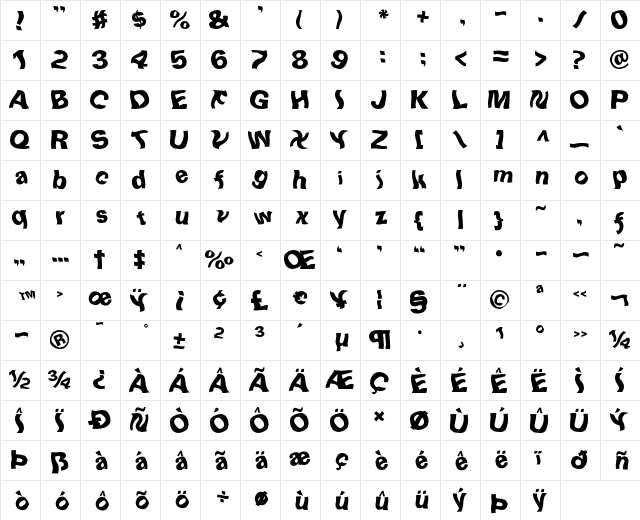
LinusPlayAOE Regular
Design Context for LinusPlayAOE Typeface
LinusPlayAOE is a composed and adaptable typeface that performs quietly and consistently across a wide range of design contexts.